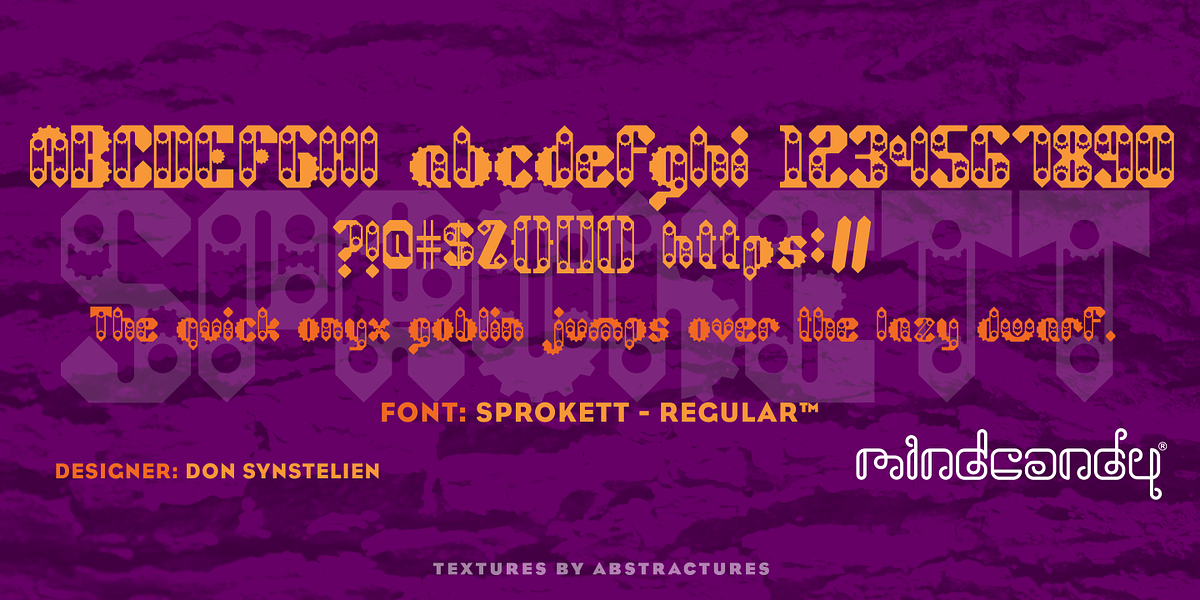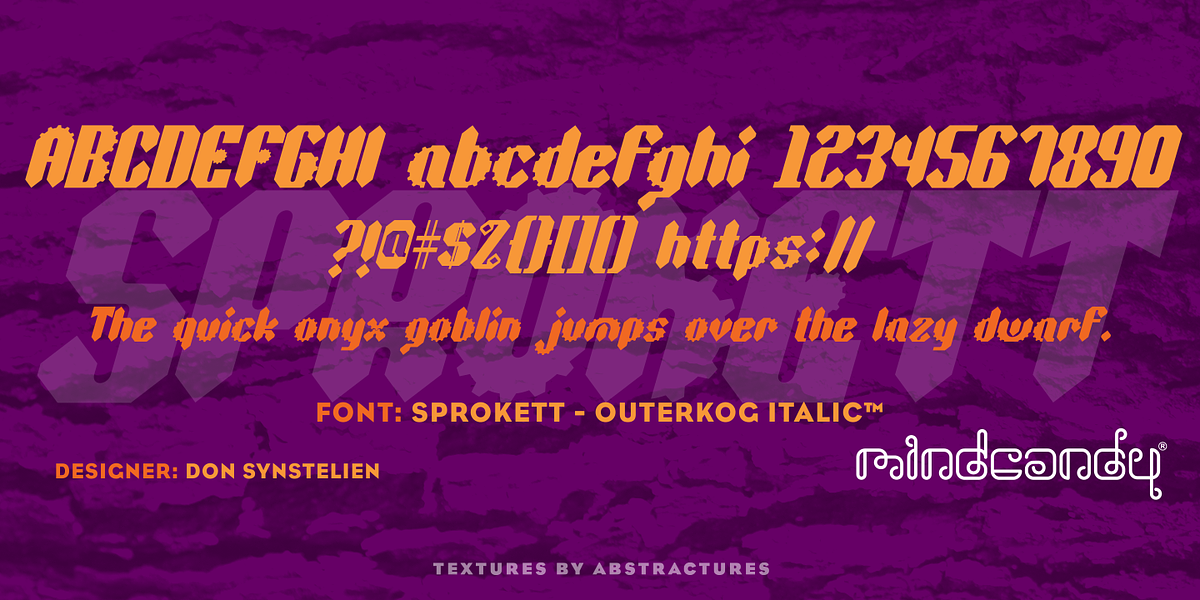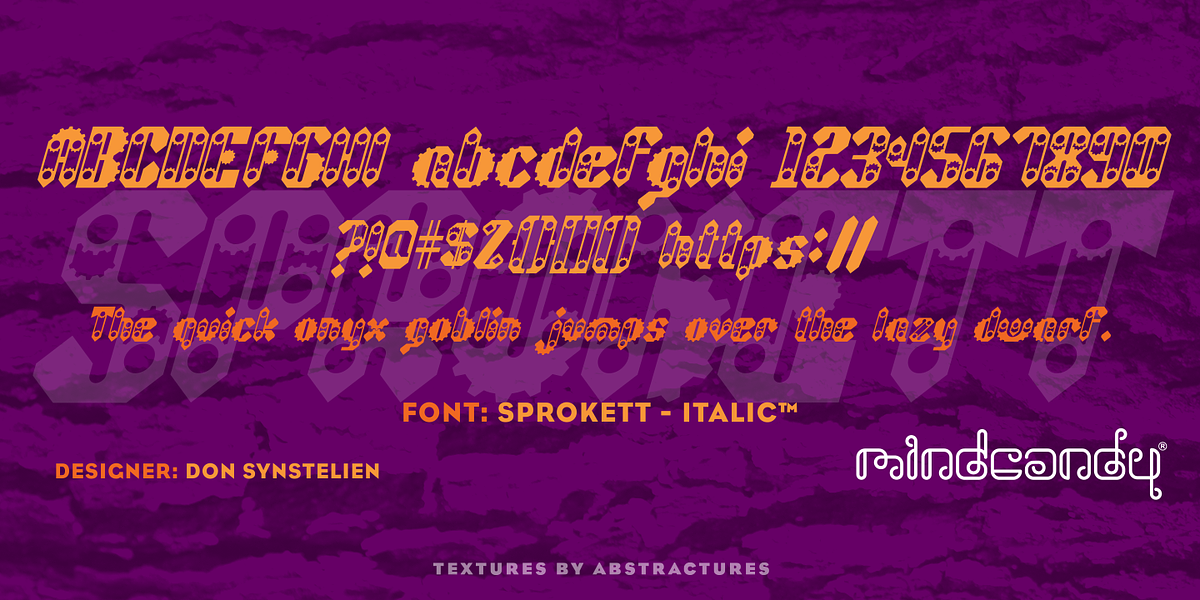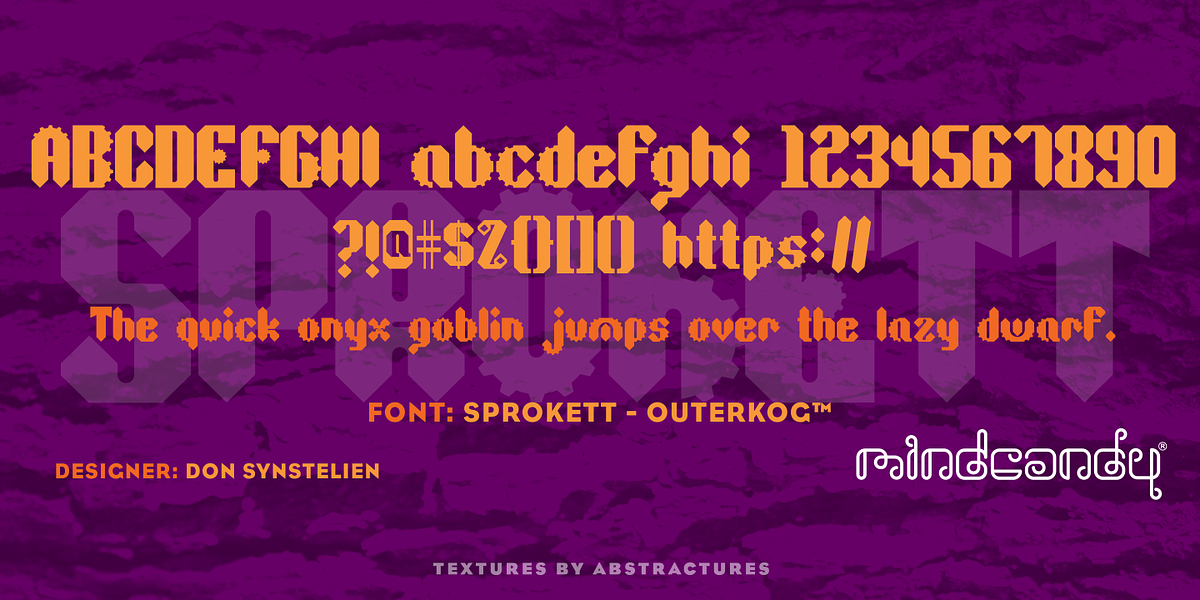
Sprokett™
This display font is characterized by its intricate octagonal shape. It falls under the novelty category, suggesting a unique and playful aesthetic suitable for branding and display purposes.